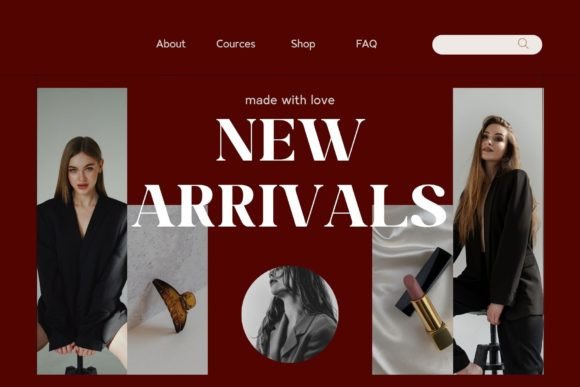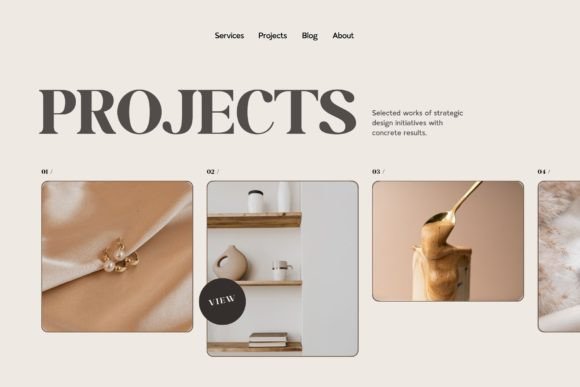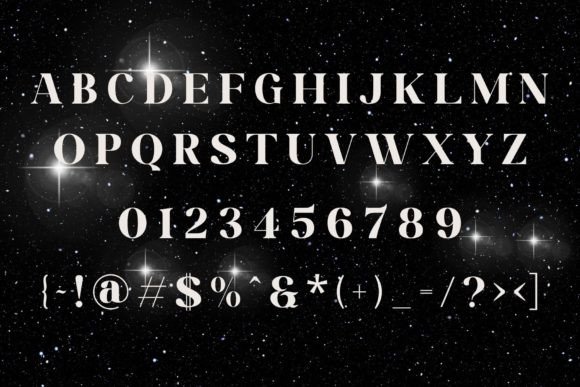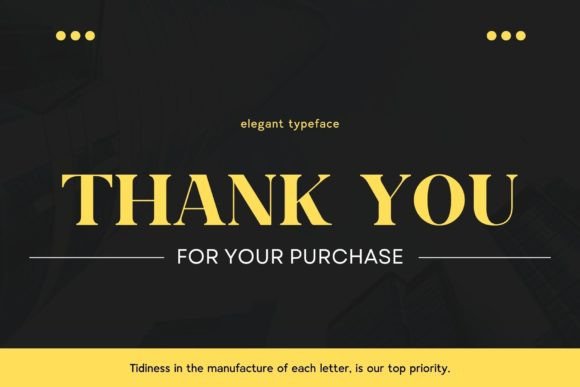
Introduction to Rockqa Font
Have you ever stared at a blank canvas, wondering which font to choose for your next creative project? The search for the perfect typography can be a daunting task, but what if I told you there’s a font that can elevate your designs and leave a lasting impression? Enter Rockqa Font, a stunning serif font that’s sure to become your new go-to design resource.
With its sleek lines and elegant curves, Rockqa Font is perfect for designers looking to add a touch of sophistication to their work. Whether you’re working on an invitation, branding project, or editorial design, Rockqa Font is the perfect choice. Its high quality and versatility make it an invaluable asset for any designer looking to take their work to the next level.
Key Features of Rockqa Font
- High-quality design resource for creative projects, suitable for various applications, including digital art and graphic design.
- Includes multiple font styles, allowing users to customize their designs with a range of options.
- Supports transparent background, making it easy to integrate with other design elements.
- Features a high-resolution design, suitable for use at large sizes without compromising image quality.
Honest Review: Rockqa Font
As a designer, I’m always on the lookout for high-quality design resources that can elevate my creative projects. Recently, I stumbled upon the Rockqa Font, and I’m excited to share my honest review with you.
- ✨ The Rockqa Font features a unique and modern design style that’s perfect for a variety of creative projects, from logos to typography-based designs.
- ✨ The font is highly customizable, allowing designers to easily adjust the spacing, size, and color to fit their needs.
- ⚠️ The font is not suitable for use on transparent backgrounds, as it may not display correctly.
- ⚠️ Some users may find the font’s modern design style too bold or overpowering for certain projects.
Overall, I’m impressed with the Rockqa Font’s high quality and versatility. While it may have some limitations, it’s an excellent addition to any designer’s toolkit. If you’re looking for a modern and customizable font for your creative projects, I highly recommend giving the Rockqa Font a try.
Getting the Most Out of Rockqa Font
For the best results with Rockqa Font, be sure to use it in conjunction with other high-quality design elements. Experiment with different font sizes, colors, and arrangements to find the perfect look for your creative project.
Common Use Cases for Rockqa Font
Rockqa Font is ideal for use in a variety of creative projects, including graphic design, digital art, and typography. Its unique design and transparent background make it a versatile and valuable design resource.